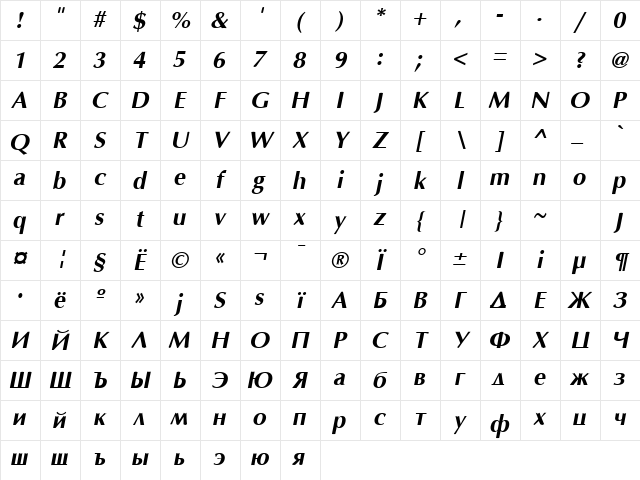
AGOpus Bold Oblique
Style: Bold Oblique
Design Context for AGOpus
AGOpus is a composed and adaptable typeface that performs quietly and consistently across a wide range of design contexts. The slanted form adds forward momentum and visual energy. Its bold stroke weight gives it real presence on the page.
Pro Tip: Use AGOpus for emphasis, pull quotes, and subheadings where its slanted energy can add rhythm to the layout.